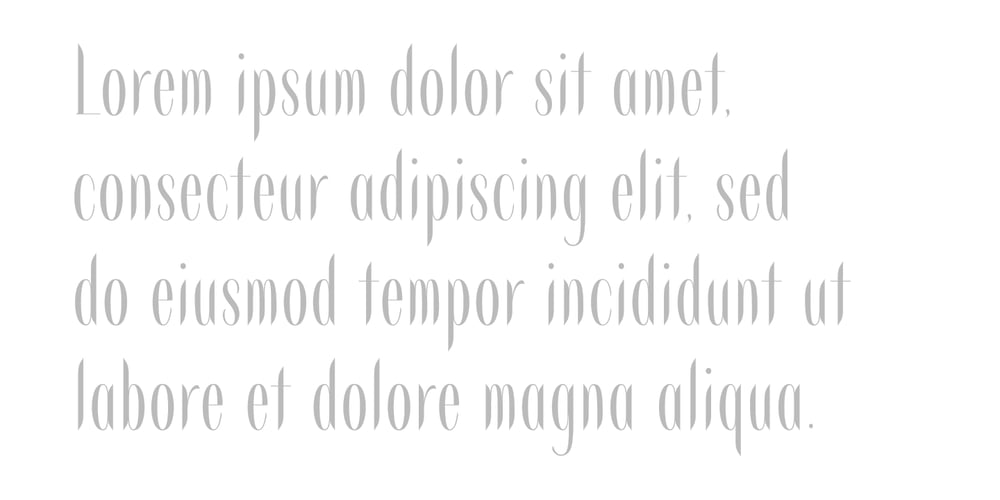
Clef Font Family was designed by Solfege Design Studio and published by Solfege. Clef contains 1 styles and family package options. Clef is a display typeface with clean contours and gently cut-off edges. With its simplicity, this font would suit well with a wide variety of projects, including book covers, art exhibitions and design websites.